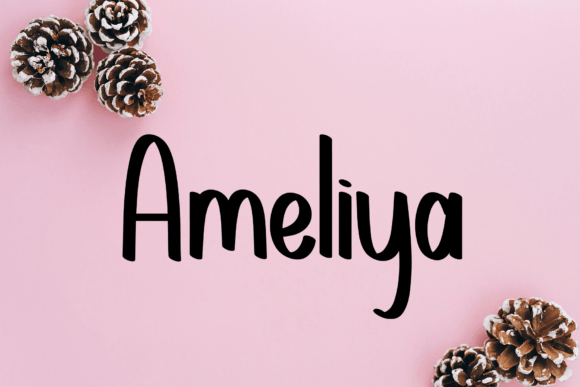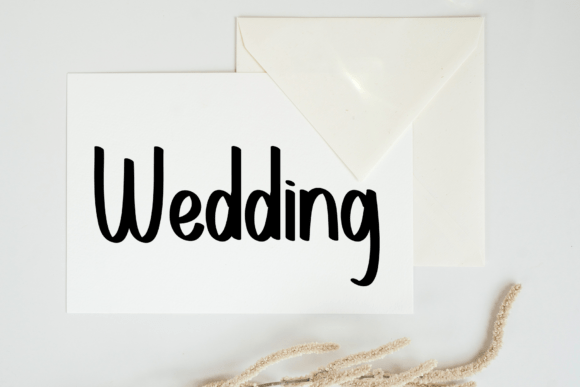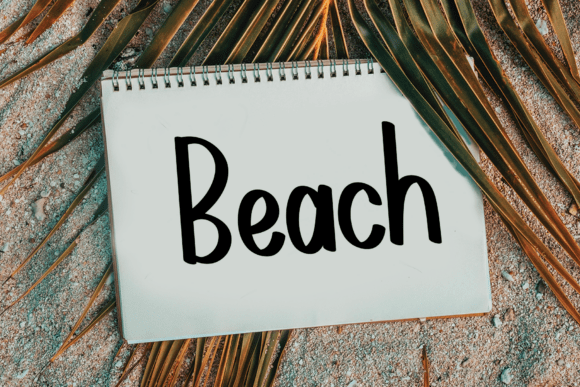
Introduction to Country Night Font
Country Night is a sweet and beautiful handwritten font.
Featuring characters that dance along the baseline, this font will add a cozy accent to any design project you wish to create .